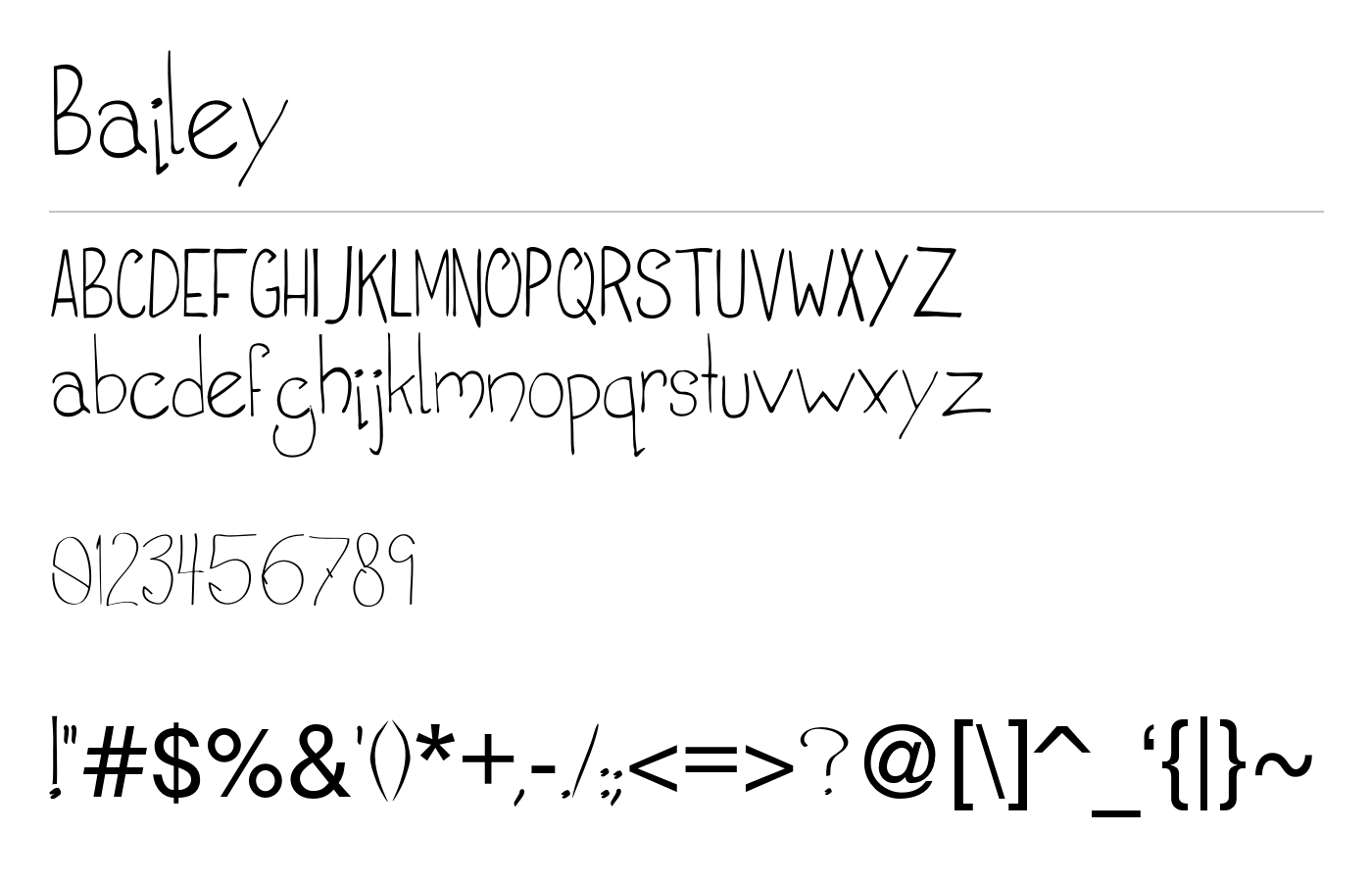
Bailey Font is a whimsical and light sans serif typeface with a hand-drawn, playful feel. Its thin strokes and tall, narrow letterforms create an airy and informal look, making it ideal for creative projects, casual branding, and designs that want to convey friendliness and approachability. This font works well for headlines, invitations, and children’s content where a unique and personal touch is desired.
Bailey Font
About Bailey Font
| Font family | Bailey Font |
| Designer | Kacey Gambrell |